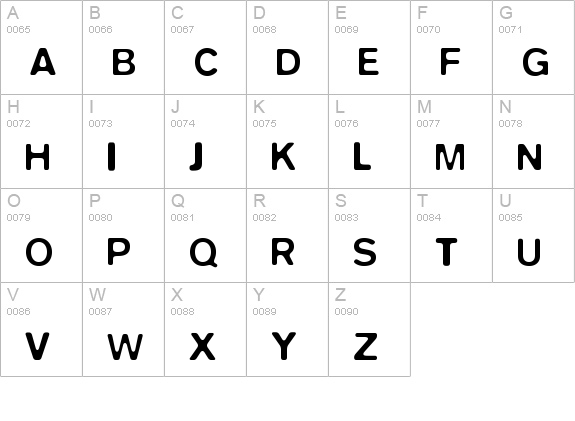
BlurMedium Font Details
BlurMedium is a stylish and modern font that combines a clean and elegant design with a touch of creativity. Its sleek lines and smooth curves make it perfect for a wide range of design projects, from logos and branding to posters and headlines. The medium weight of the font strikes the perfect balance between readability and impact, making it versatile and easy to use. The best part about BlurMedium is that it is available for free download at FontsMarket.com. This means that you can easily access this high-quality font without any cost, making it a great choice for designers looking to add a fresh and contemporary touch to their work. Whether you're a professional designer or a hobbyist looking to elevate your projects, BlurMedium is a fantastic option that won't break the bank. Download it today and start creating stunning designs with ease!